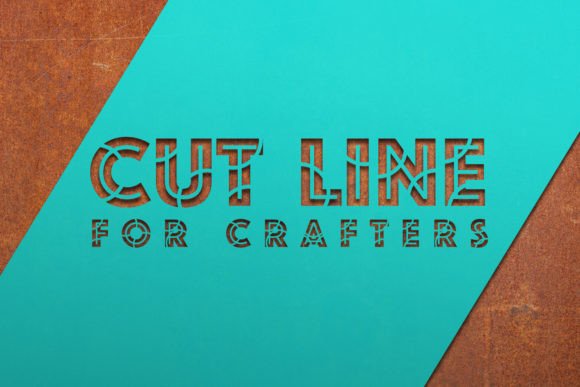
Cut Line Font: The Ultimate Solution for Laser and Paper Cutting
Are you tired of using regular fonts for your craft projects, only to find that they don’t cut out well with your laser or paper cutter? Look no further than the Cut Line font, a specially designed typeface that is perfect for cutting out letters and shapes with precision and ease.
What is Cut Line Font?
Cut Line is a unique font that has been specifically designed for laser and paper cutting. Its bold and sturdy design makes it ideal for cutting out letters, shapes, and designs with smooth edges and clear shapes. The font is optimized for cutting, ensuring that it stays together well when cut, making it perfect for a variety of craft projects.
Key Features of Cut Line Font
- Bold and Easy to Cut: The Cut Line font is designed to be bold and easy to cut out, making it perfect for laser and paper cutting.
- Smooth Edges: The font features smooth edges, ensuring that your cut-out letters and shapes have a professional finish.
- Clear Shapes: The Cut Line font has clear and defined shapes, making it easy to read and recognize.
- Strong and Durable: The font is designed to be strong and durable, ensuring that it stays together well when cut.
Benefits of Using Cut Line Font
Using the Cut Line font for your craft projects offers a range of benefits, including:
- Ease of Use: The font is easy to use and cut out, making it perfect for crafters of all levels.
- Professional Results: The Cut Line font ensures that your cut-out letters and shapes have a professional finish, making your projects look high-quality and polished.
- Versatility: The font is versatile and can be used for a range of craft projects, including signs, stencils, cards, and more.
- Time-Saving: The Cut Line font saves you time and effort, as it is designed to cut out quickly and easily.
Uses of Cut Line Font
The Cut Line font is perfect for a range of craft projects, including:
- Signs: Use the Cut Line font to create professional-looking signs for your business, event, or home.
- Stencils: The font is ideal for creating stencils for painting, drawing, or other crafts.
- Cards: Use the Cut Line font to create custom cards for special occasions, such as birthdays, weddings, or holidays.
- Paper Crafts: The font is perfect for paper crafting, including scrapbooking, card making, and origami.
Tips and Tricks for Using Cut Line Font
Here are some tips and tricks for getting the most out of the Cut Line font:
- Experiment with Different Sizes: Experiment with different font sizes to achieve the desired effect.
- Adjust the Kerning: Adjust the kerning to ensure that your text is evenly spaced.